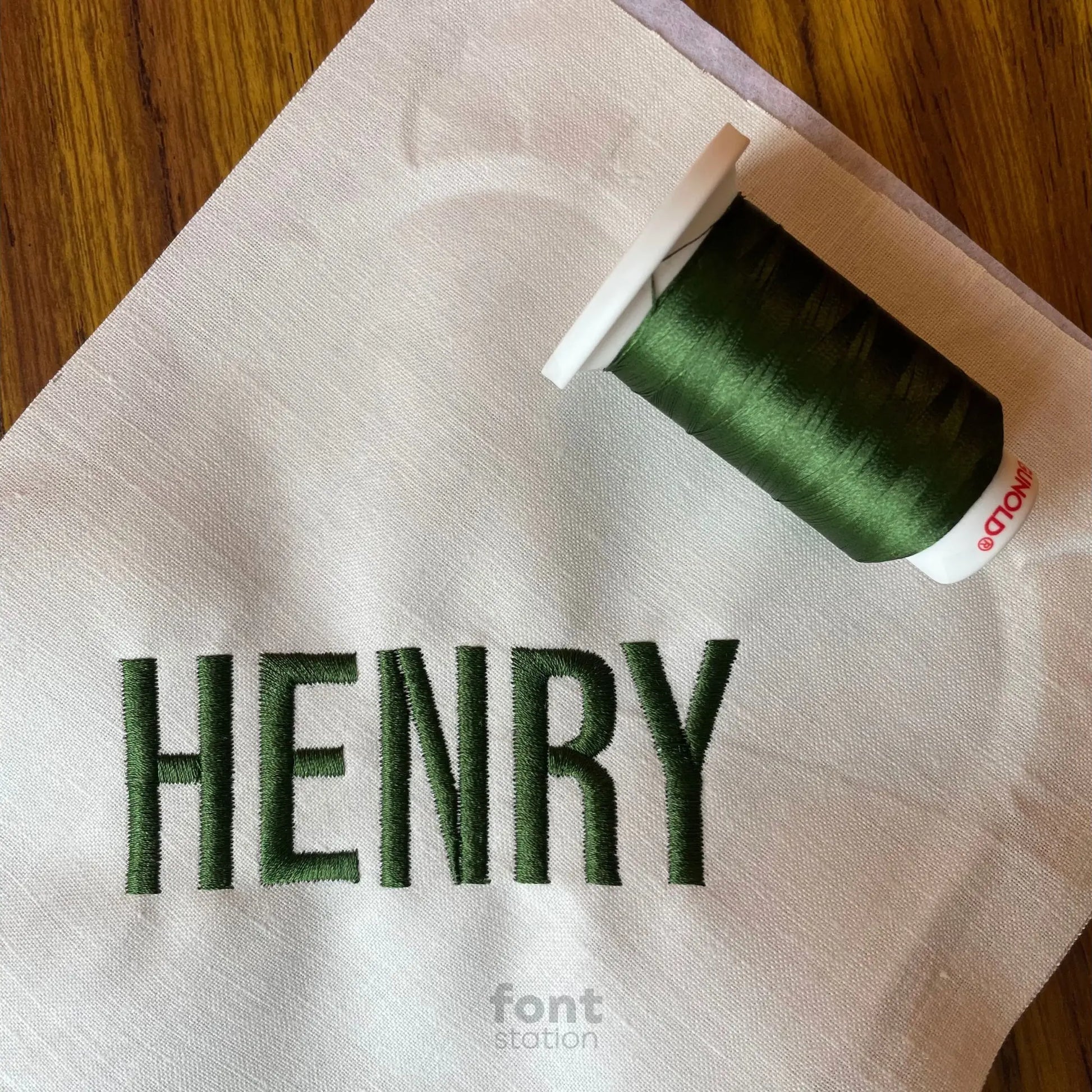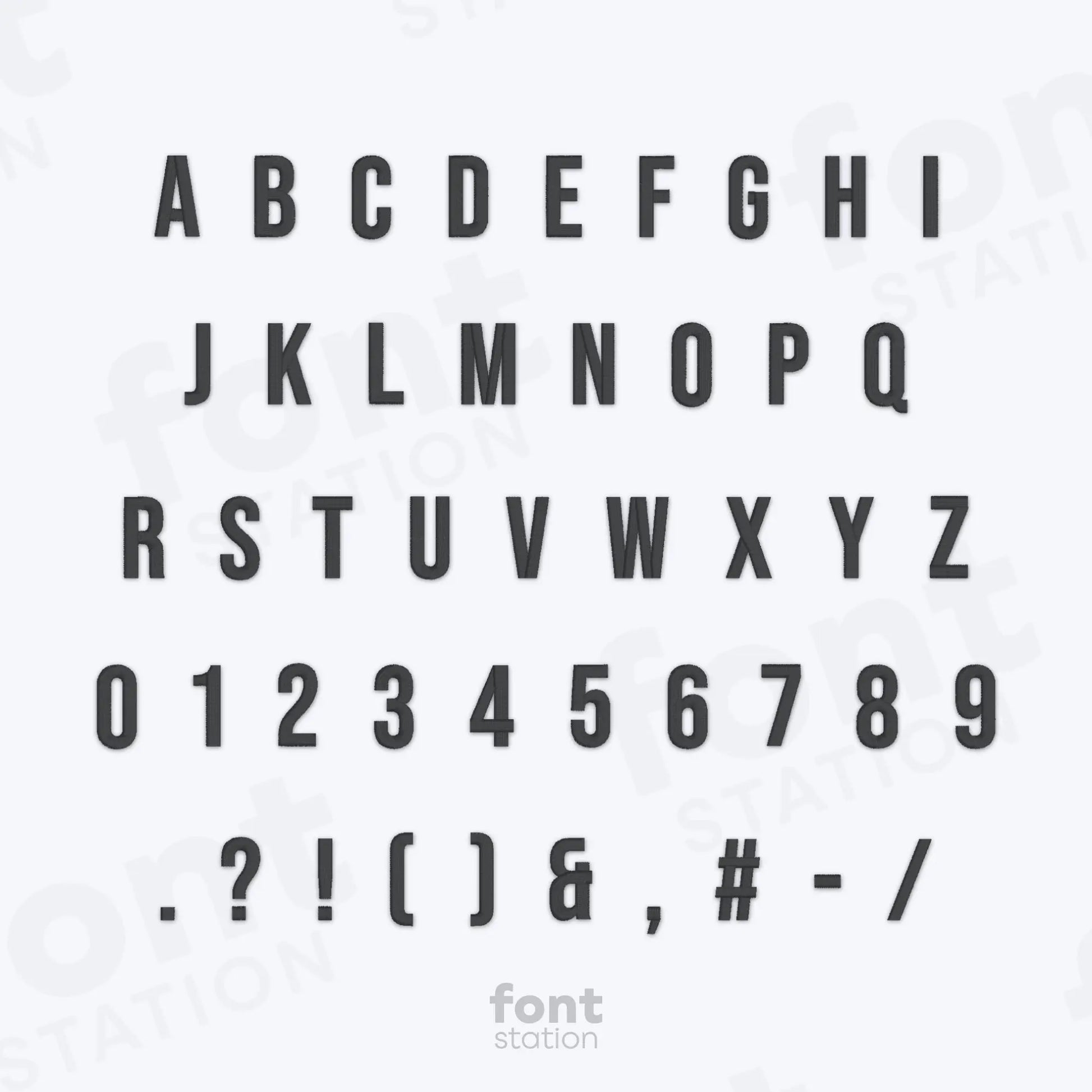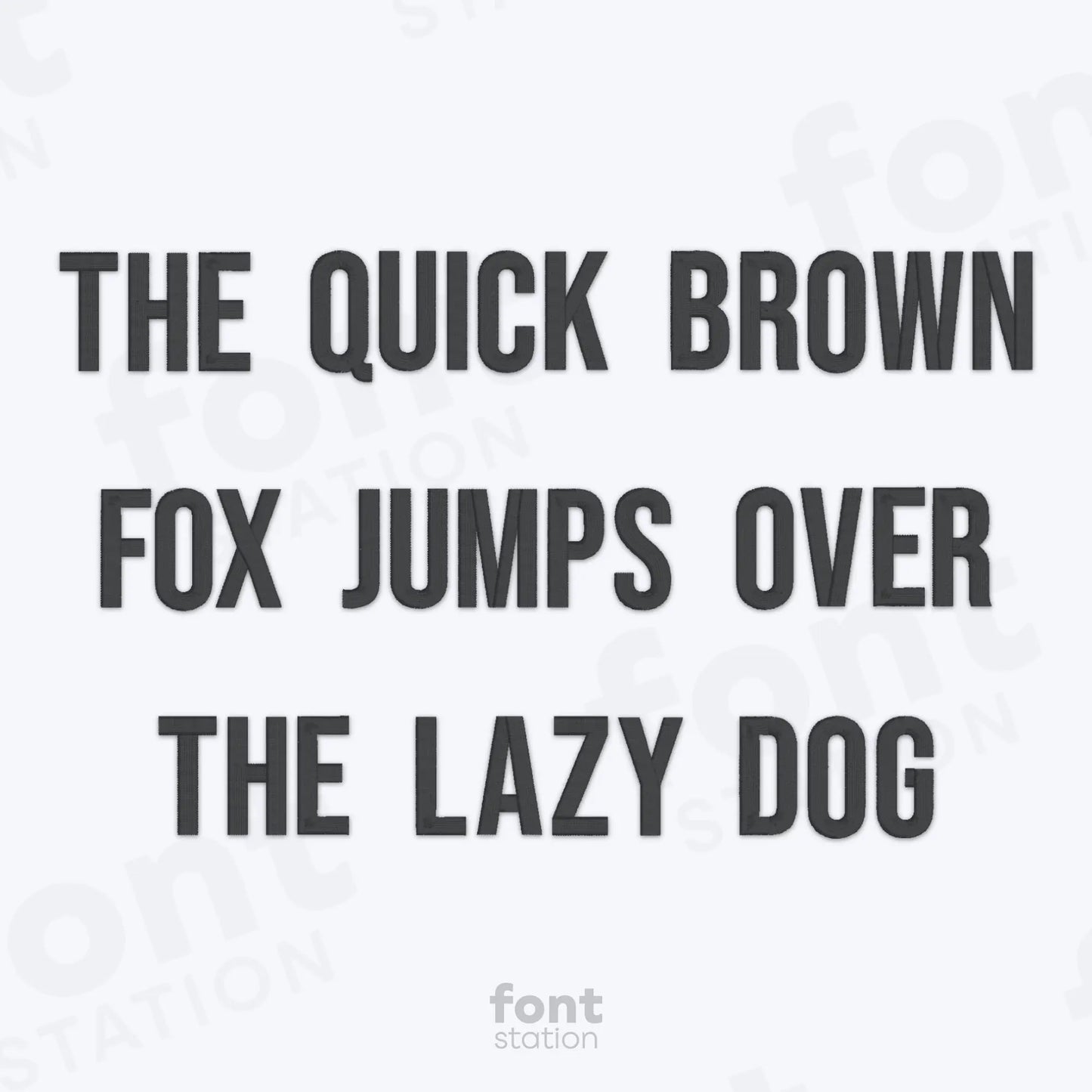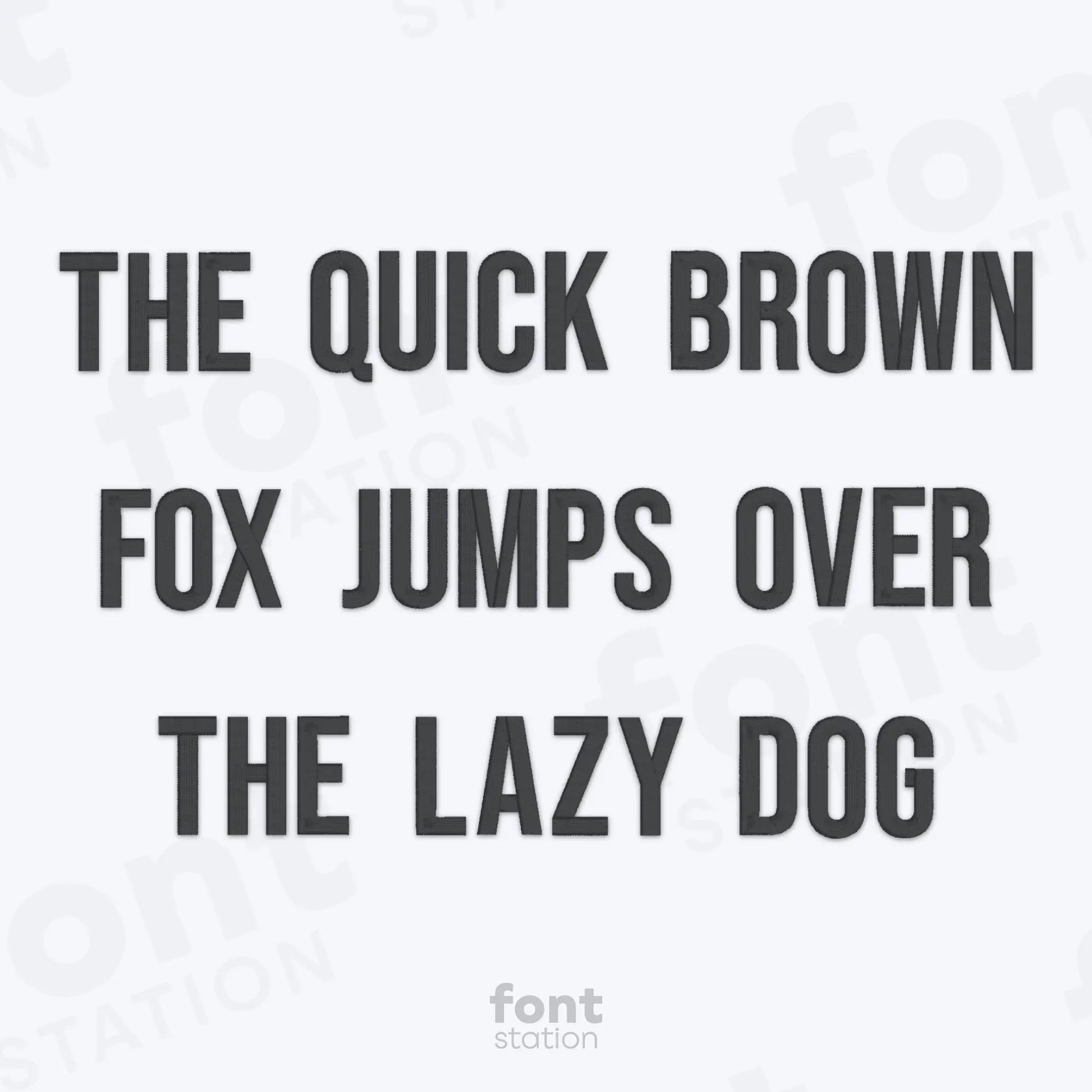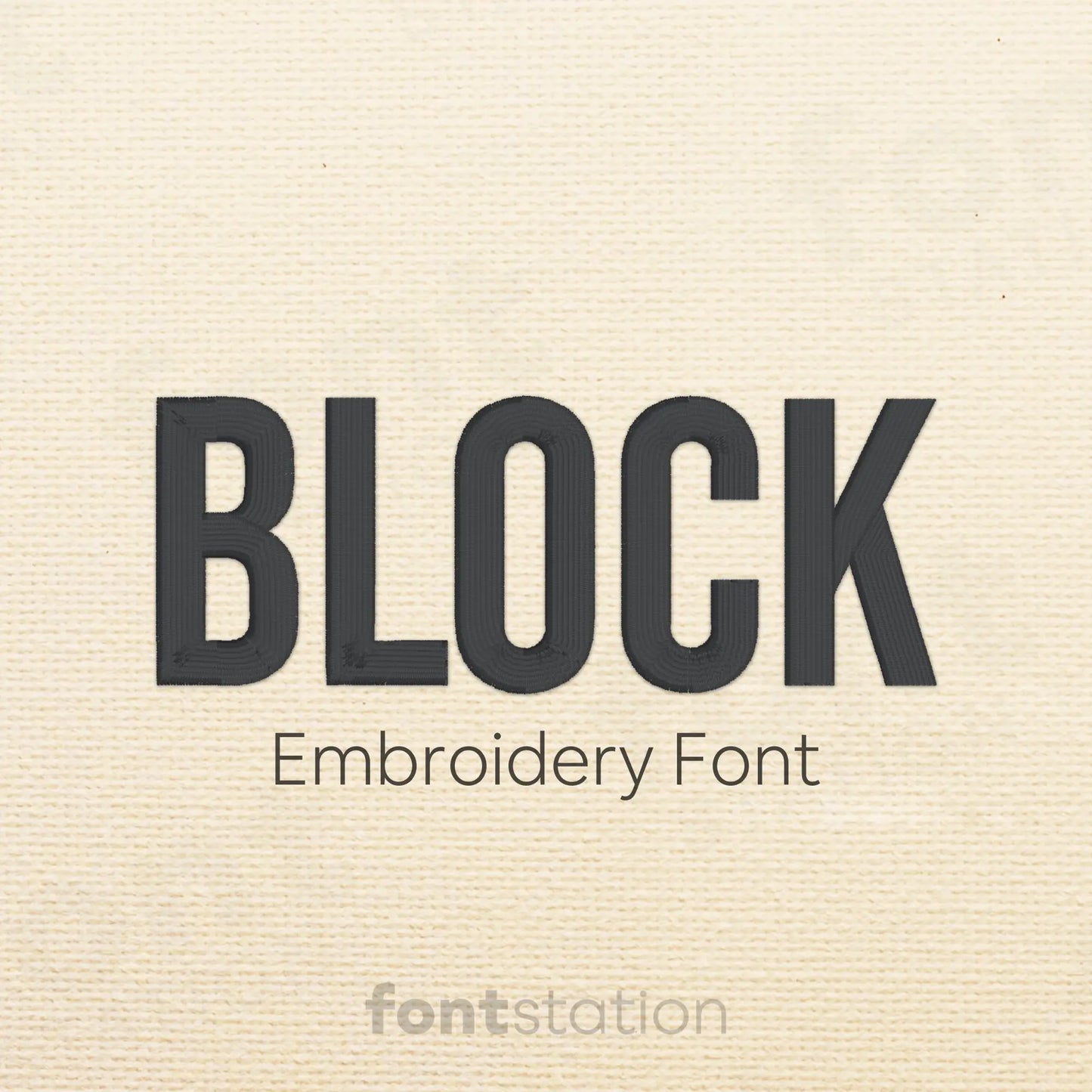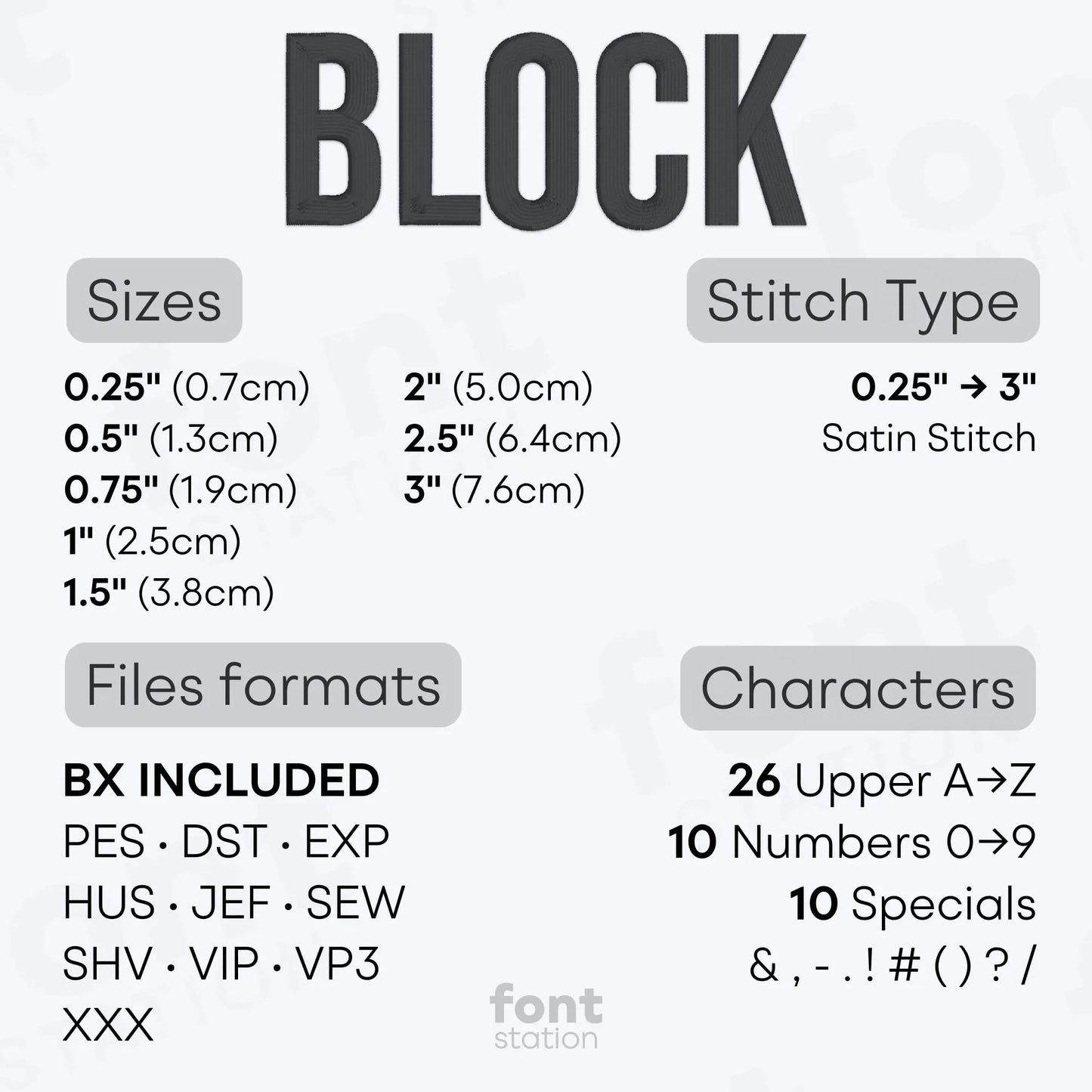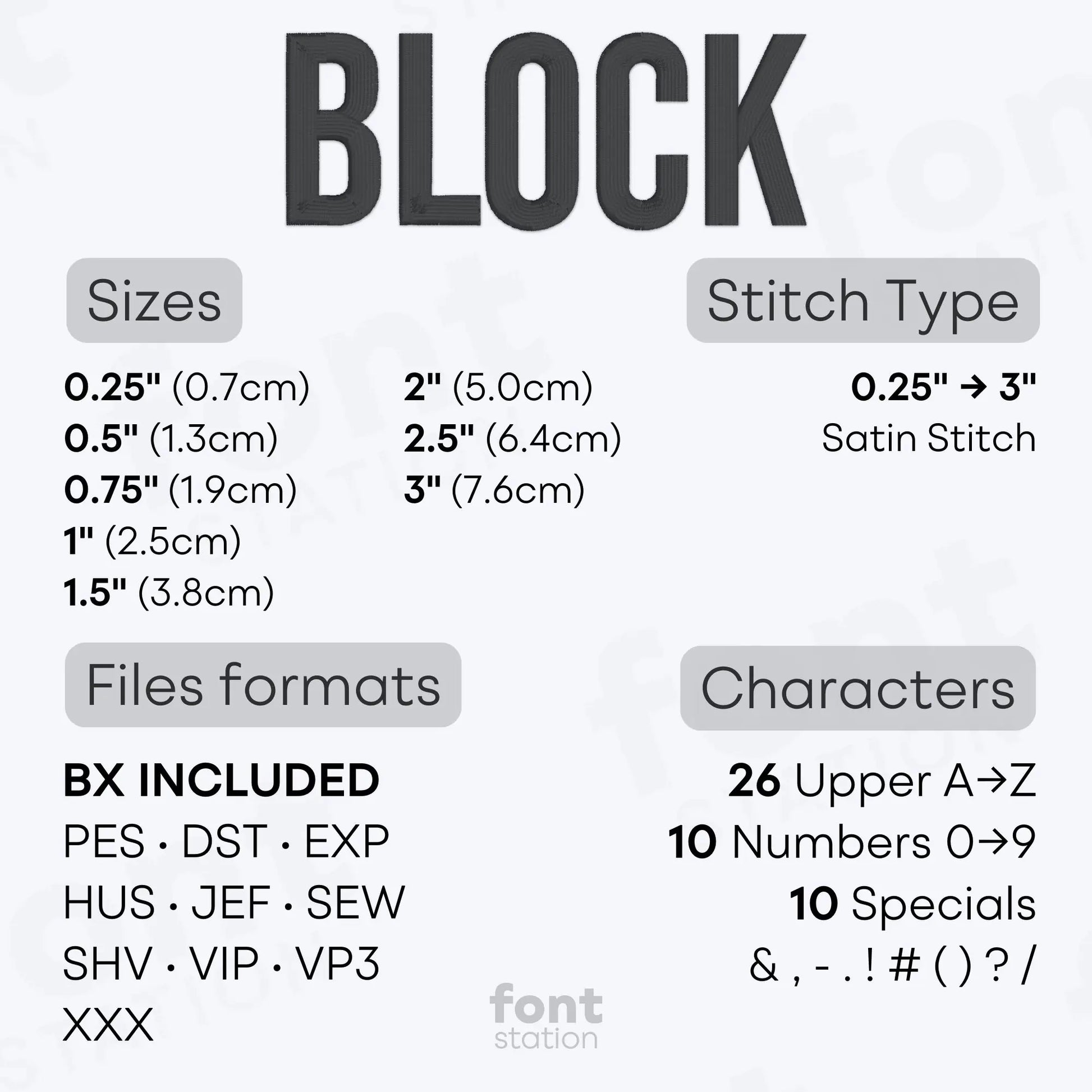
Block Embroidery Font
Introducing our Block embroidery font, a simple, modern sans serif alphabet with clean letters that stitch smoothly on your embroidery machine. Perfect for basic designs and any everyday project.
About the Block Embroidery Font
Our Block embroidery font brings a clean, simple sans serif style with a modern touch to your embroidery projects.
This easy-to-use machine embroidery font features a straightforward basic alphabet with bold, readable letters, perfect for labels, names, school items, uniforms, and all-purpose embroidery designs. Its minimal and modern aesthetic makes it a go-to choice for clean stitching and versatile lettering.